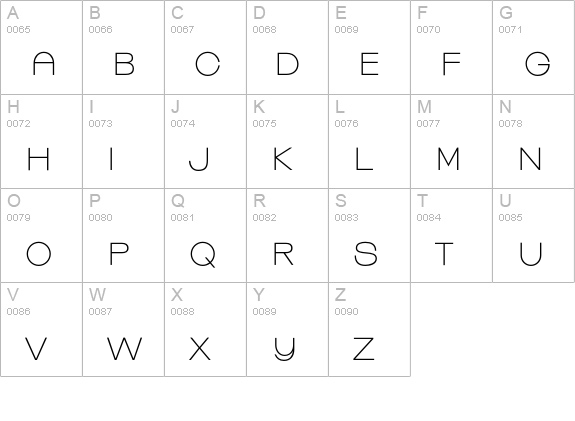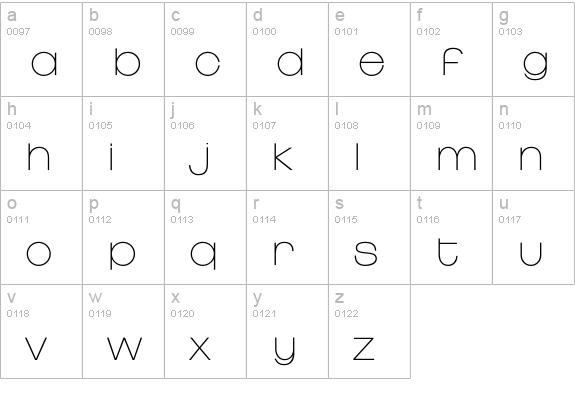
LinearEF-Regular Font Details
LinearEF-Regular is the standard, neutral variant in the LinearEF typeface family \xE2\x80\x94 well suited to general body text, paragraphs, and standard typographic work.
LinearEF-Regular font is a modern and sleek typeface that brings a sense of sophistication to any design project. With its clean lines and elegant curves, this font is perfect for adding a touch of professionalism to your work. The versatility of LinearEF-Regular makes it suitable for a wide range of applications, from branding to editorial design. The best part is that LinearEF-Regular is available for free download at FontsMarket.com. Now you can enhance your projects with this high-quality font without breaking the bank. Don't miss out on the opportunity to elevate your designs with the timeless elegance of LinearEF-Regular. Download it today and see the difference it can make in your work!